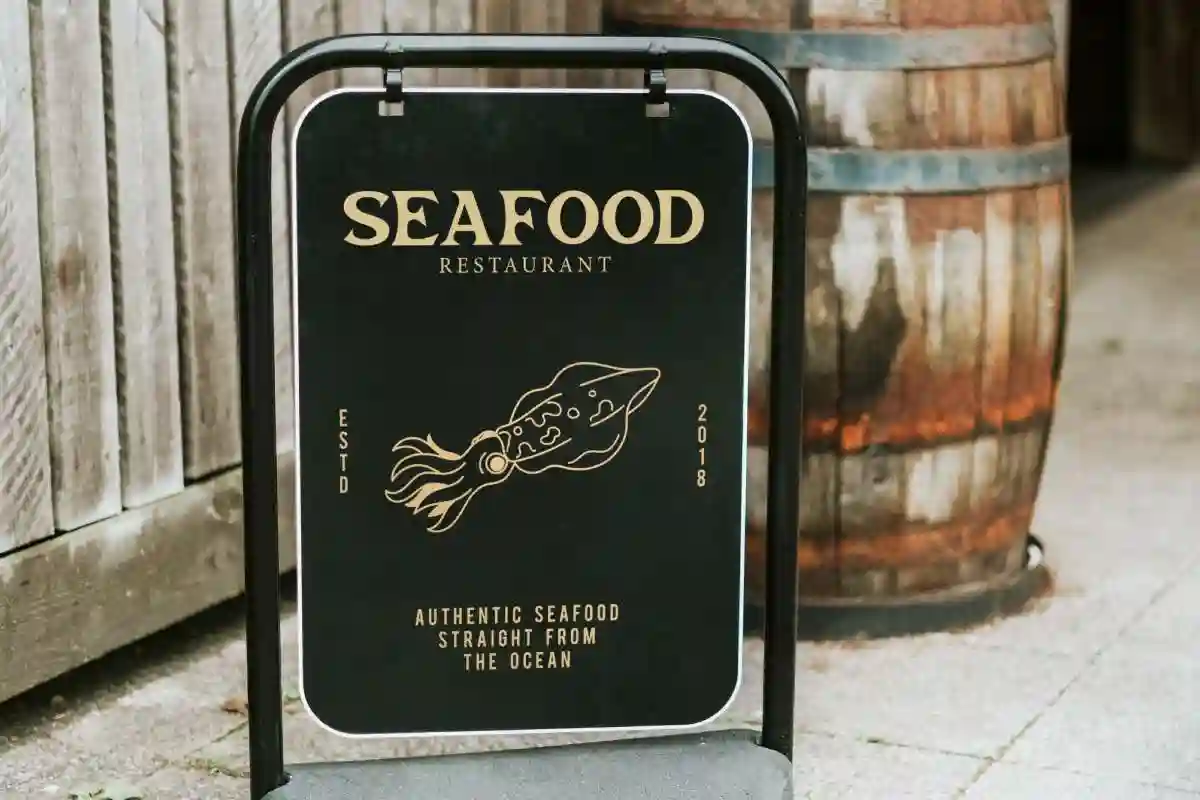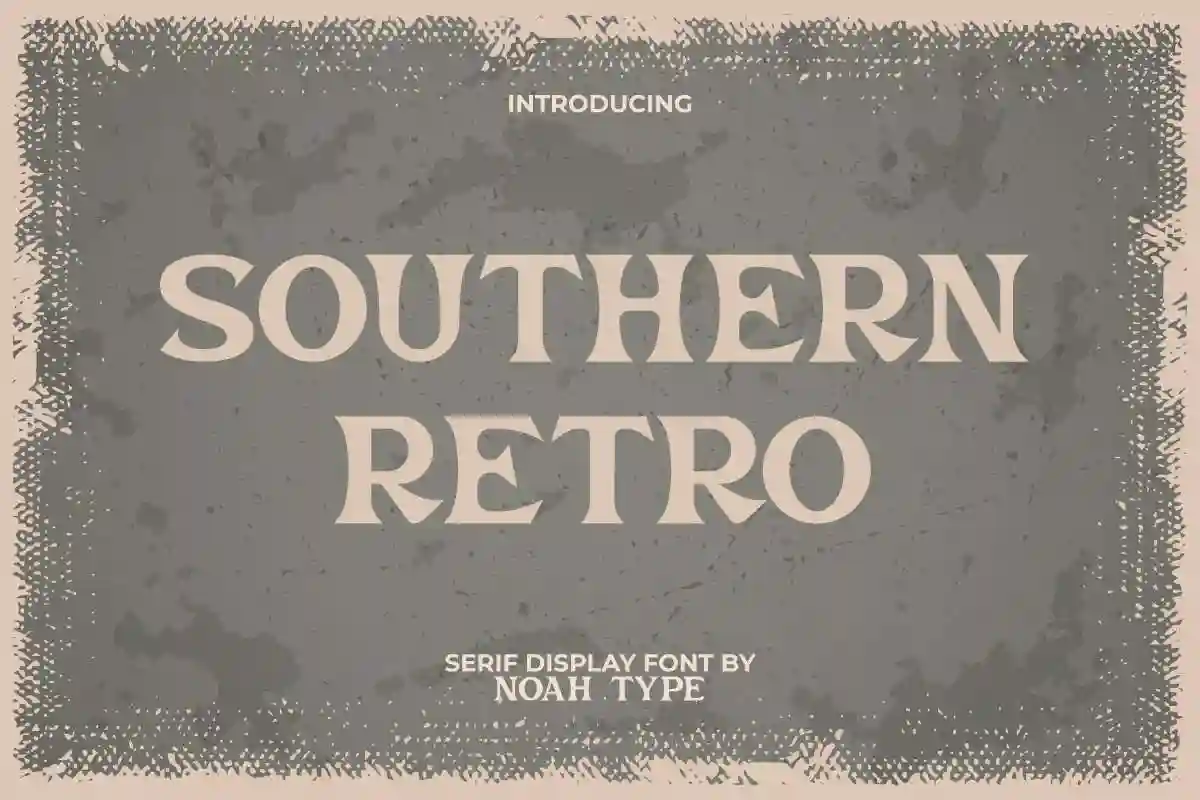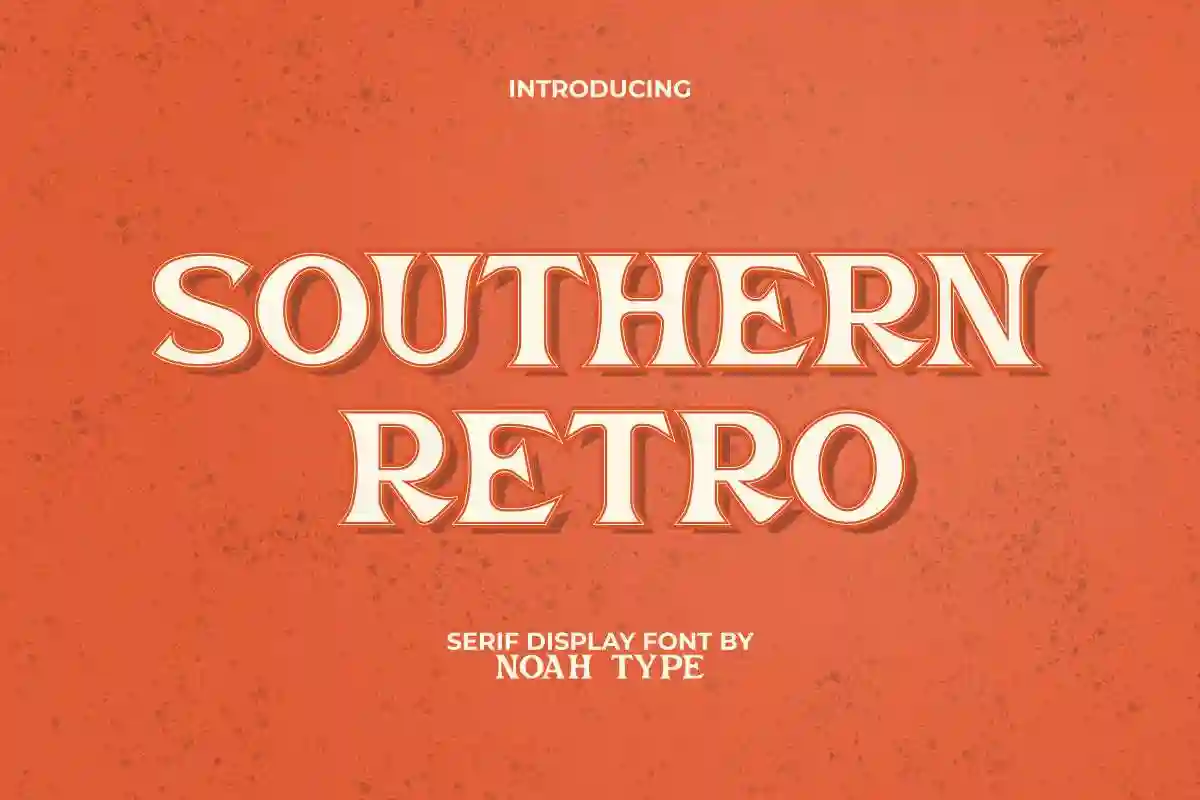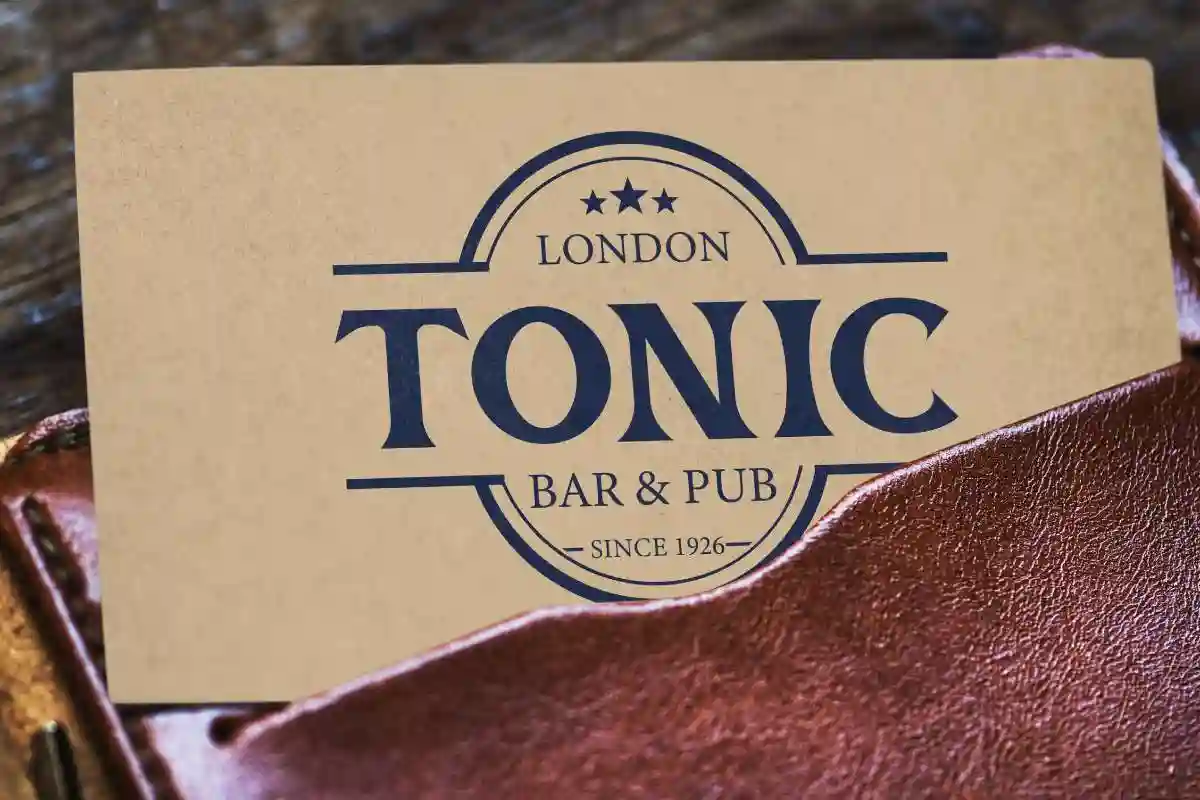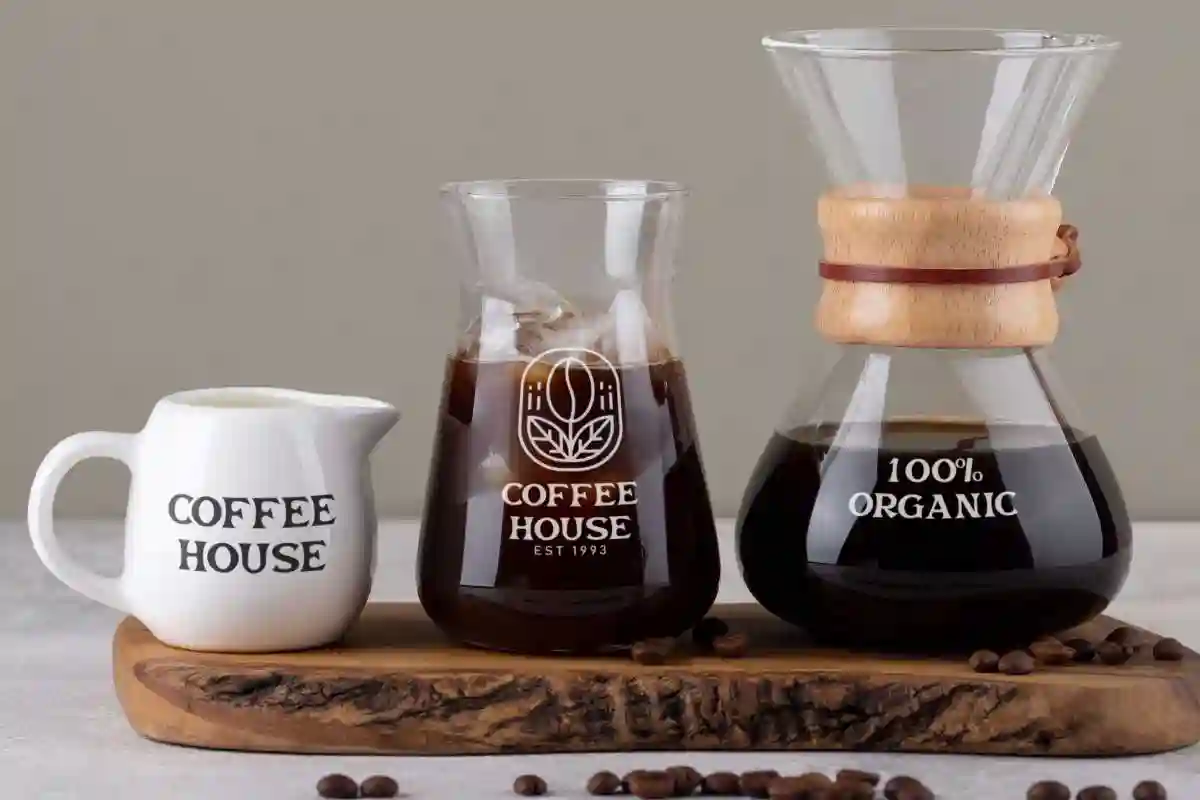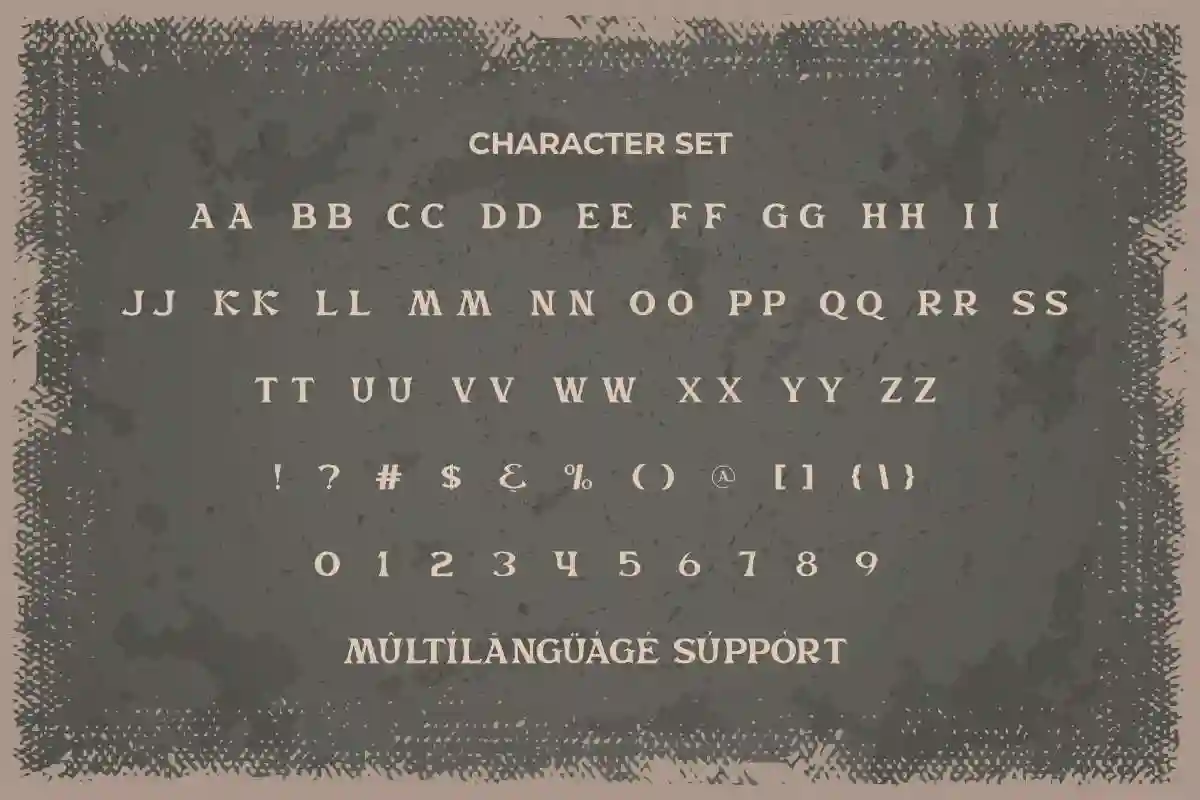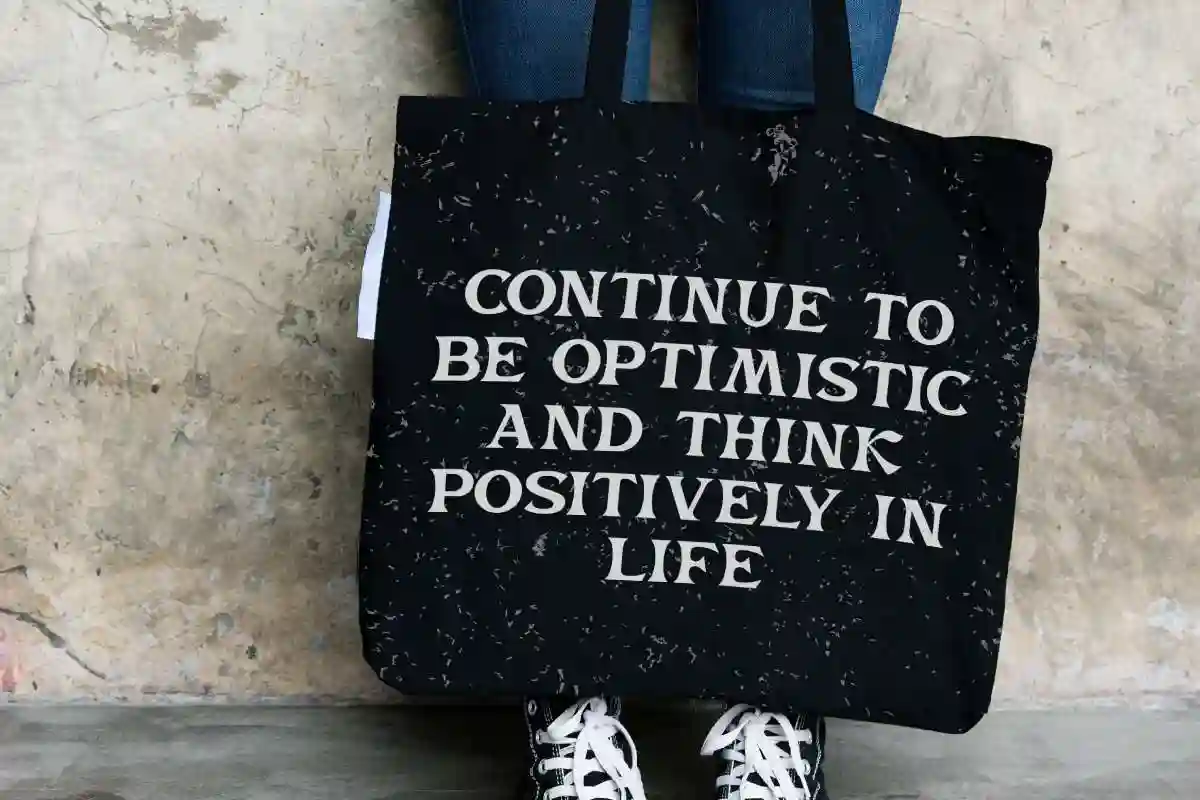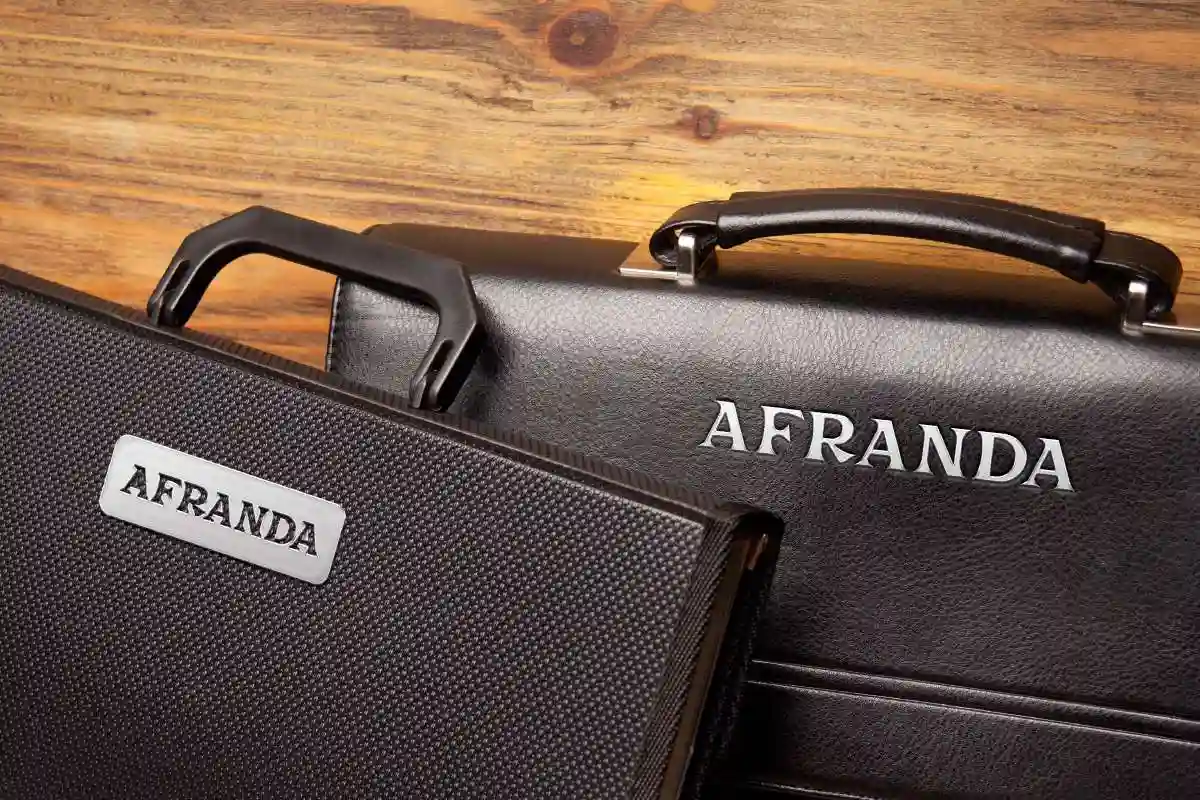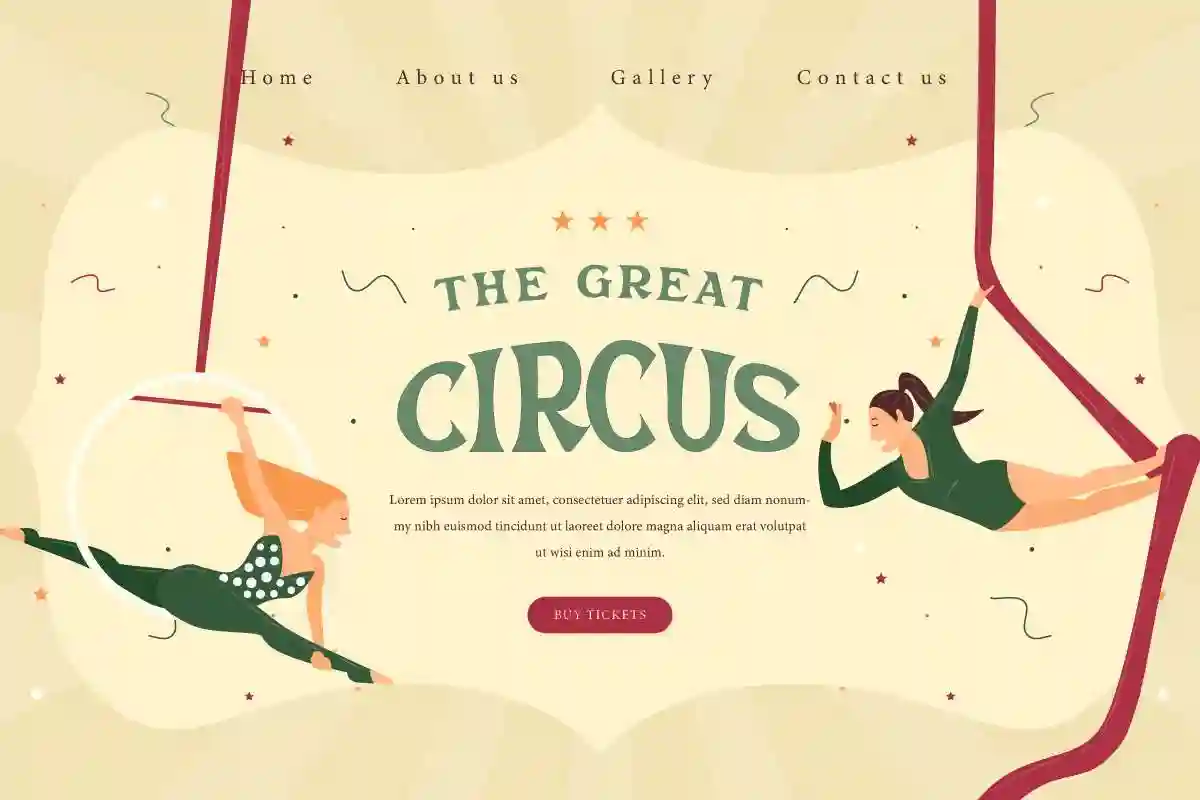
Southern Retro Font is a classic serif display font with retro old style theme. This font will bring your design to a retro 70s vibe. With its style, it will make you want to include it in the design, such as catalog, custom design, greeting card, invitation, label, magazine, poster, product packaging, quote, screen printing, signage, website, and more!
Southern Retro Font include full set of ALL CAPS for Uppercase and Lowercase Basic Characters, Numerals, Punctuation, and Symbol. This font has the potential to be used in various industrial fields, such as, accessories, advertisement, art, cafe, event organizer, fashion, handicrafts, printing, publishing, restaurant, etc.